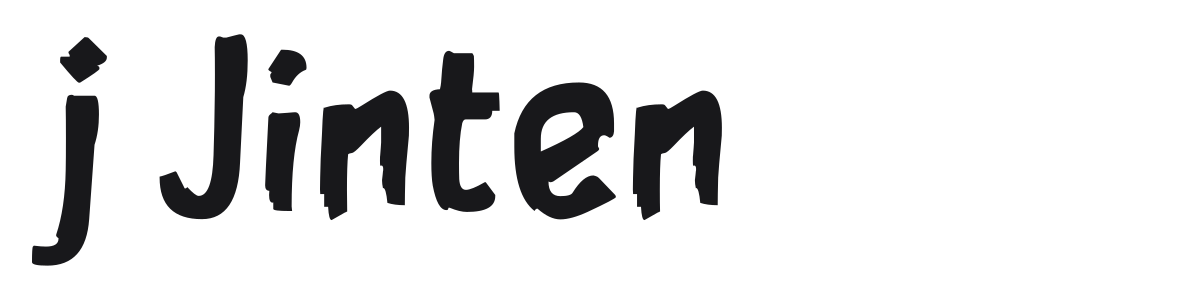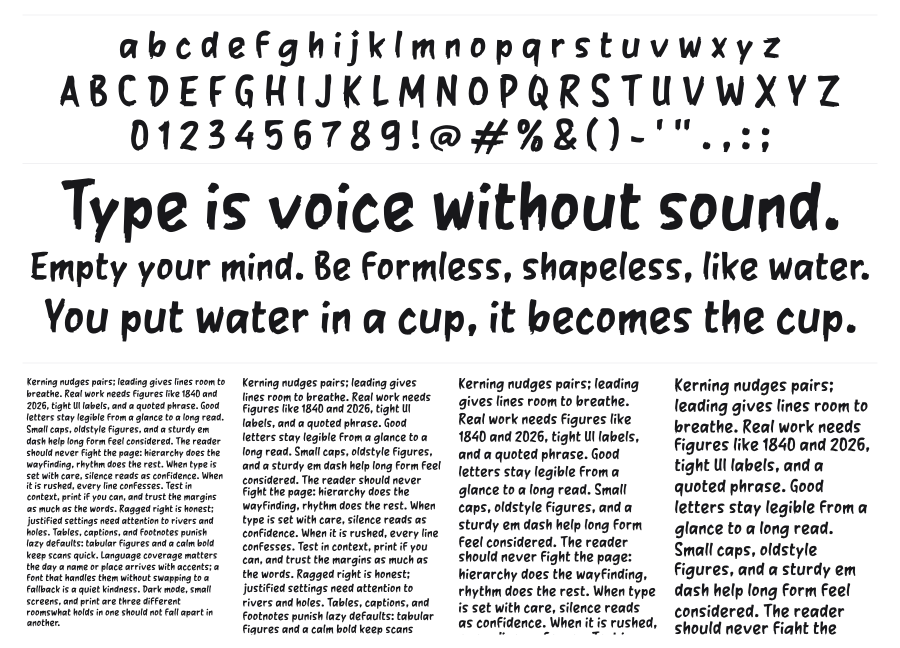
j Jinten
Jinten is a bold upright brush font with thick, rough strokes that look like they were painted quickly with a loaded brush. The irregular edges and informal rhythm give it genuine handmade energy without tipping into chaos. Works well for packaging, posters, and casual branding that needs personality at large sizes.